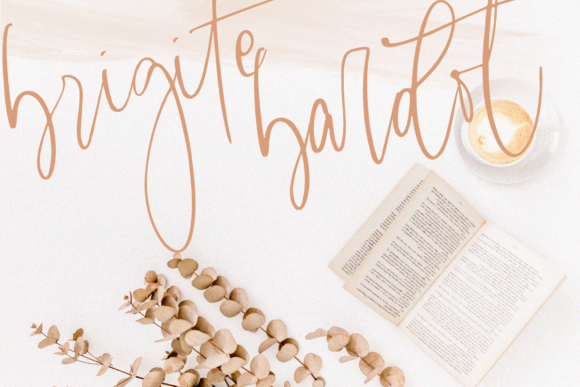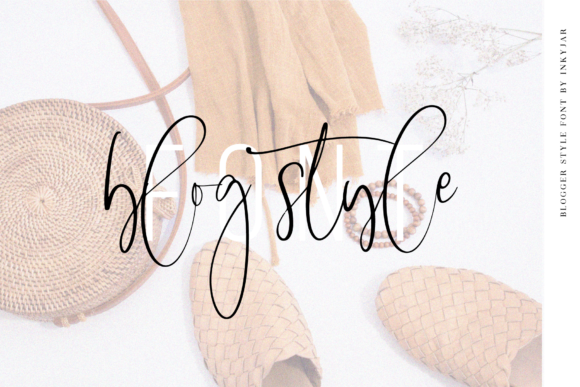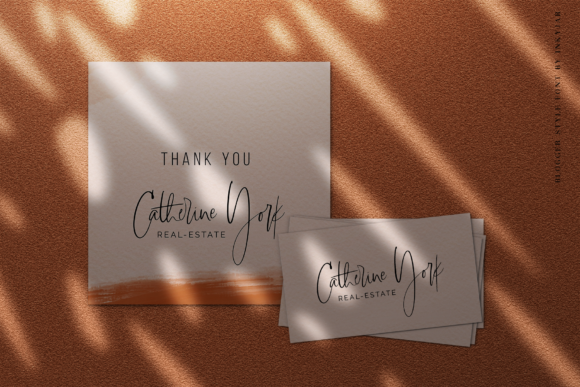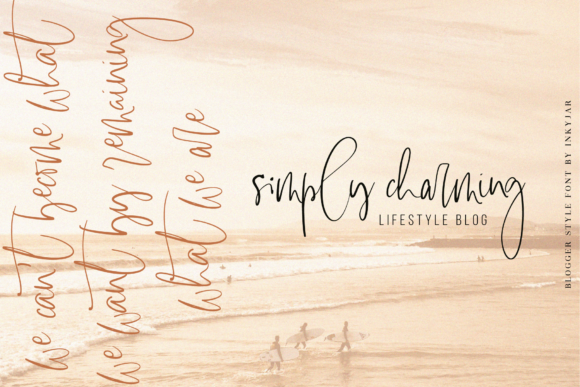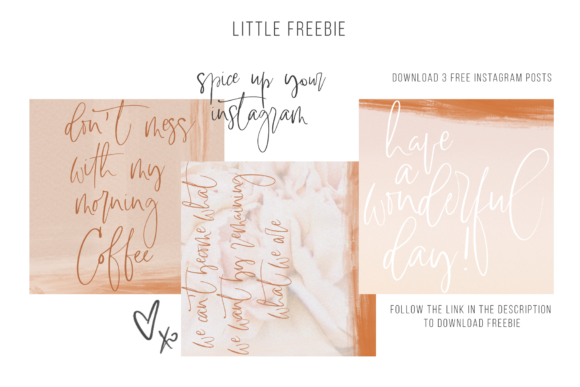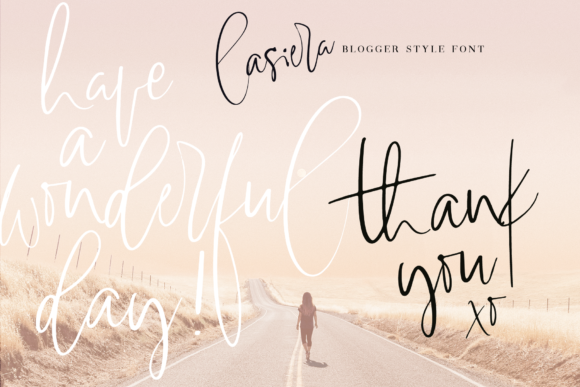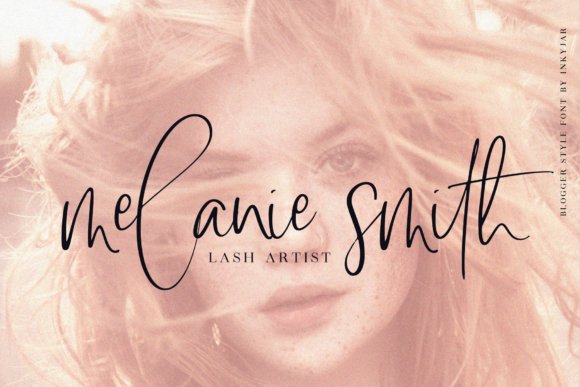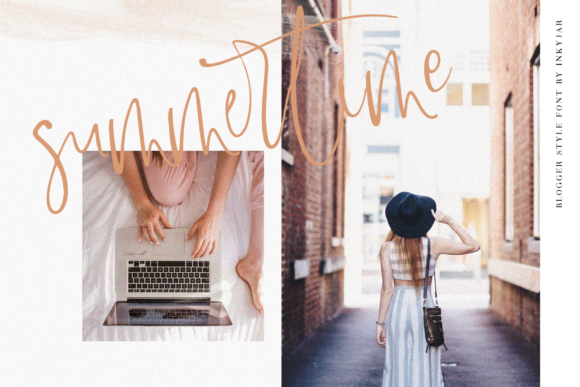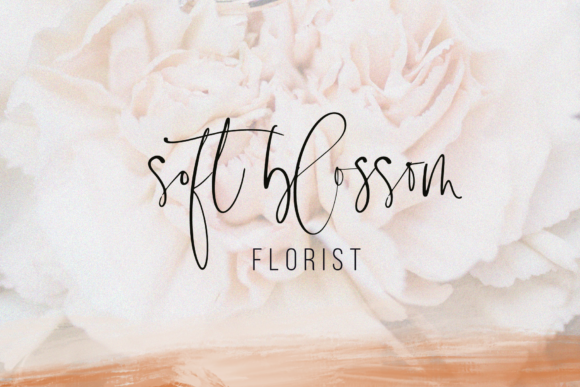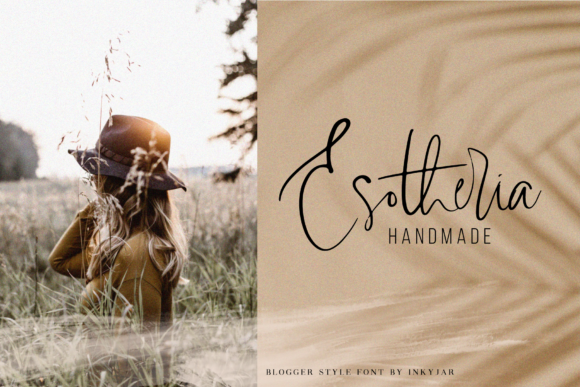
Lasiera Script Font
About Lasiera Script Font
The Lasiera is a sexy, bold script font that would perfectly match feminine branding to empower business women around the globe.
It has an amazing handwritten feel which can be used for Instagram posts, blog headers, wedding invitations, and much more!